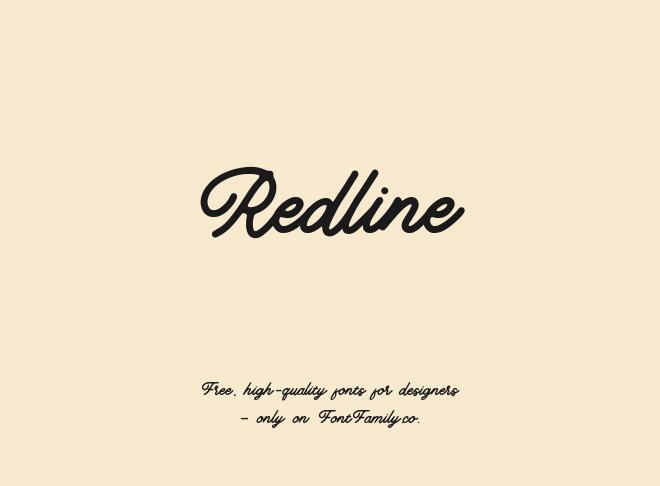
Redline Font
The Redline Font, designed by DesignFoundry, is a playful and decorative script typeface that exudes a lively and creative energy. Released in 2015 under a Free for Personal Use license, Redline Font is a hand-drawn font characterized by its fluid and dynamic letterforms. It is reminiscent of a quick, spontaneous brush stroke, giving it a youthful and energetic vibe. Ideal for bold headlines, expressive logos, and vibrant posters, Redline Font is a favorite among designers who want to add a touch of whimsy and dynamism to their work. Its handwritten style makes it a fantastic choice for personal projects, while its display category ensures it stands out in any design. Compared to other fonts, Redline Font is unique in its ability to balance playfulness and legibility, making it a highly versatile font for various creative projects.
Author | DesignFoundry |